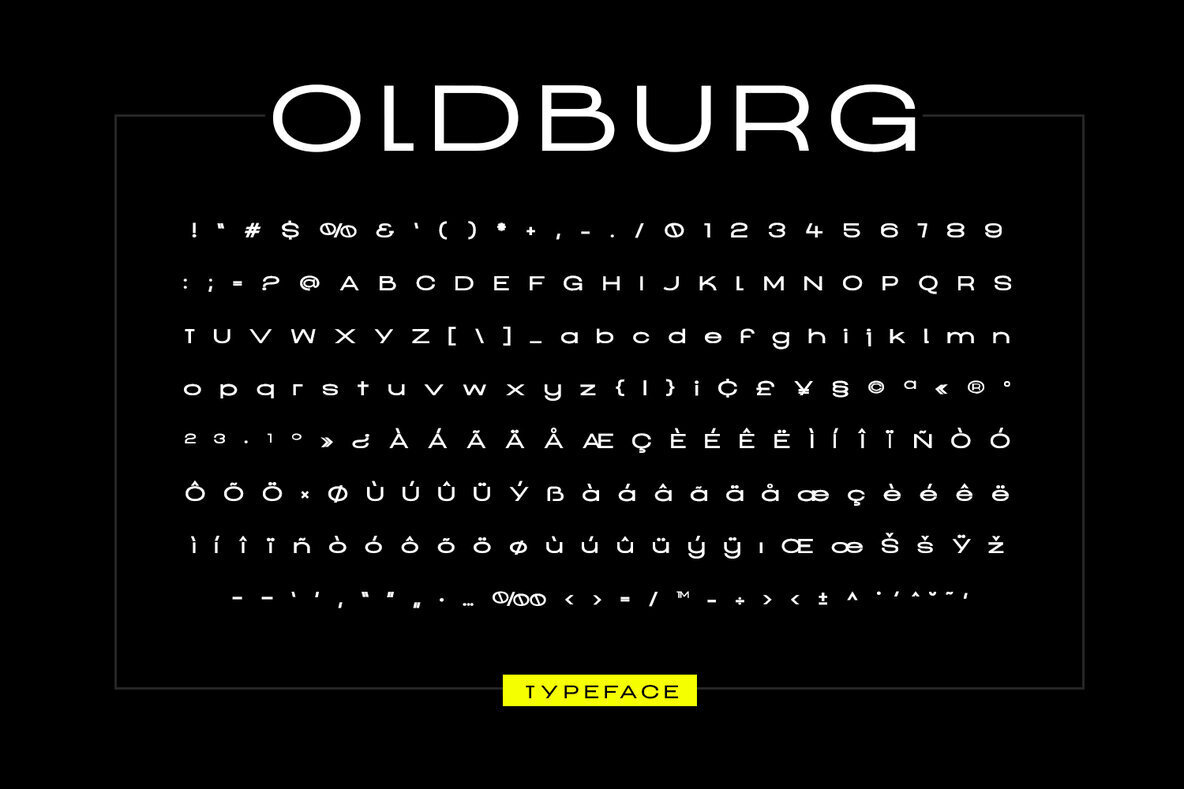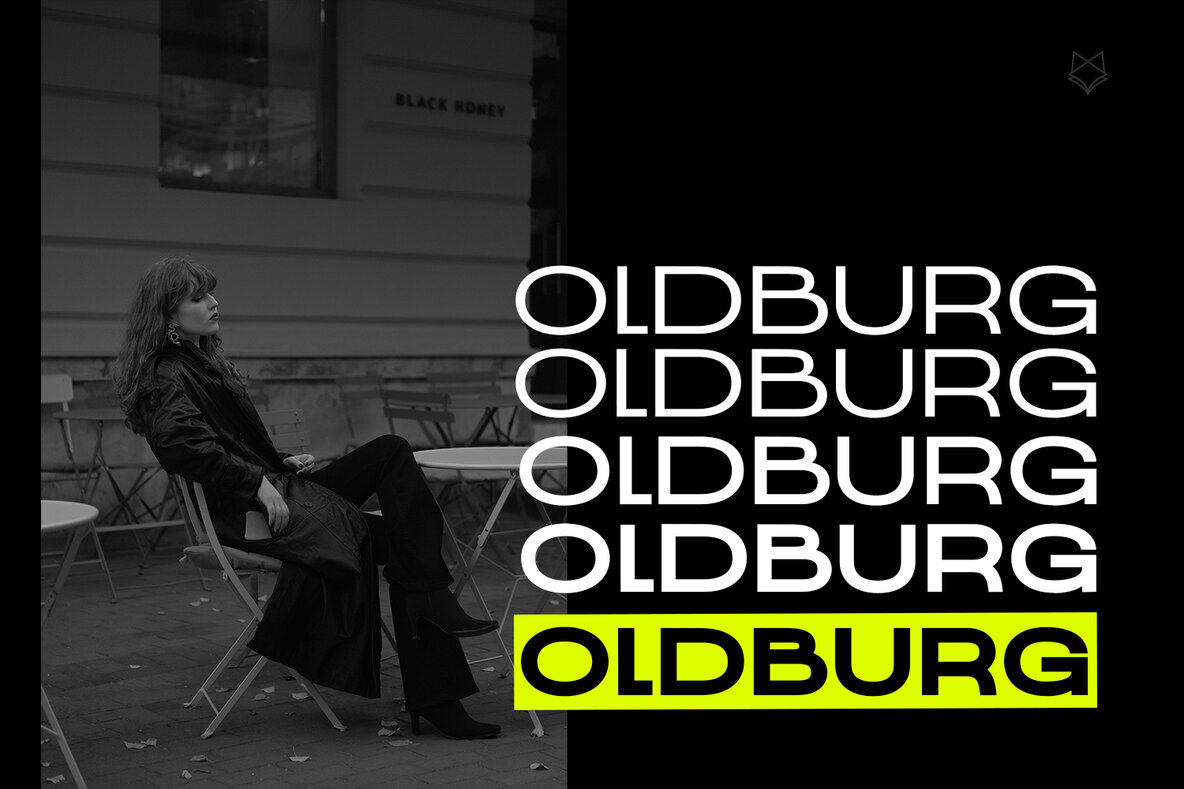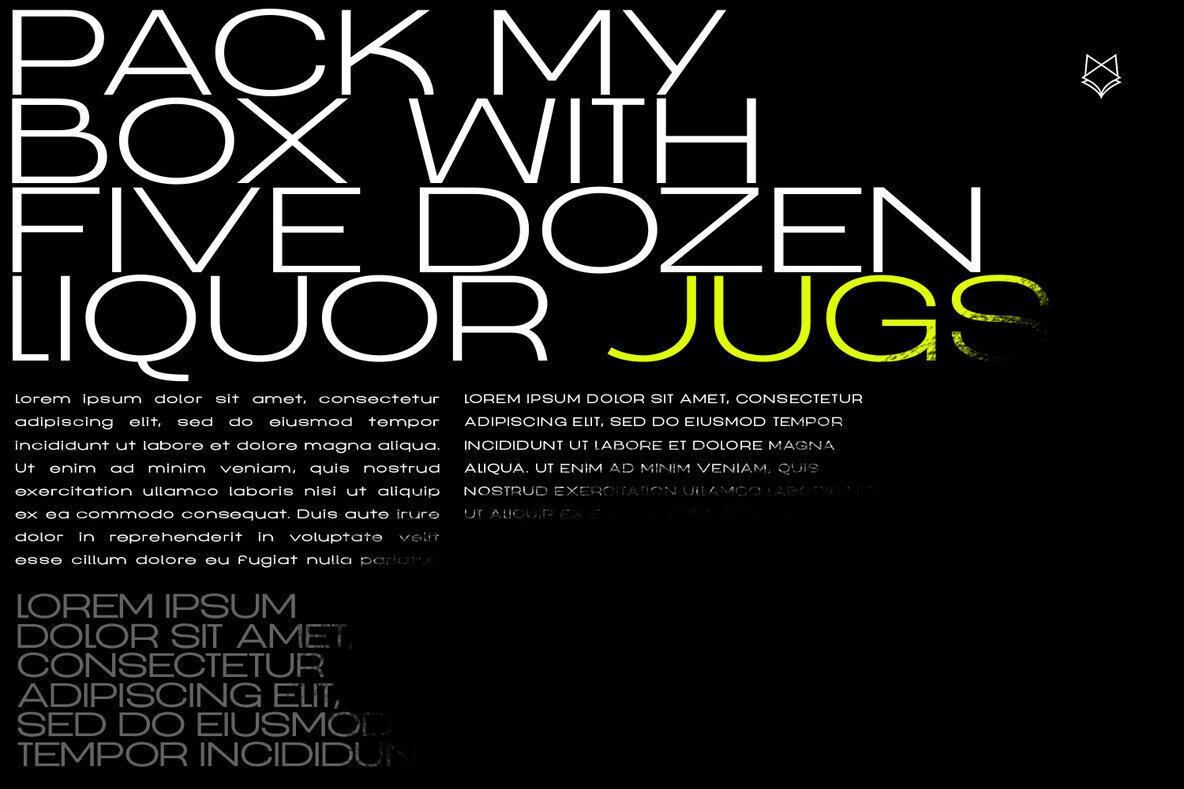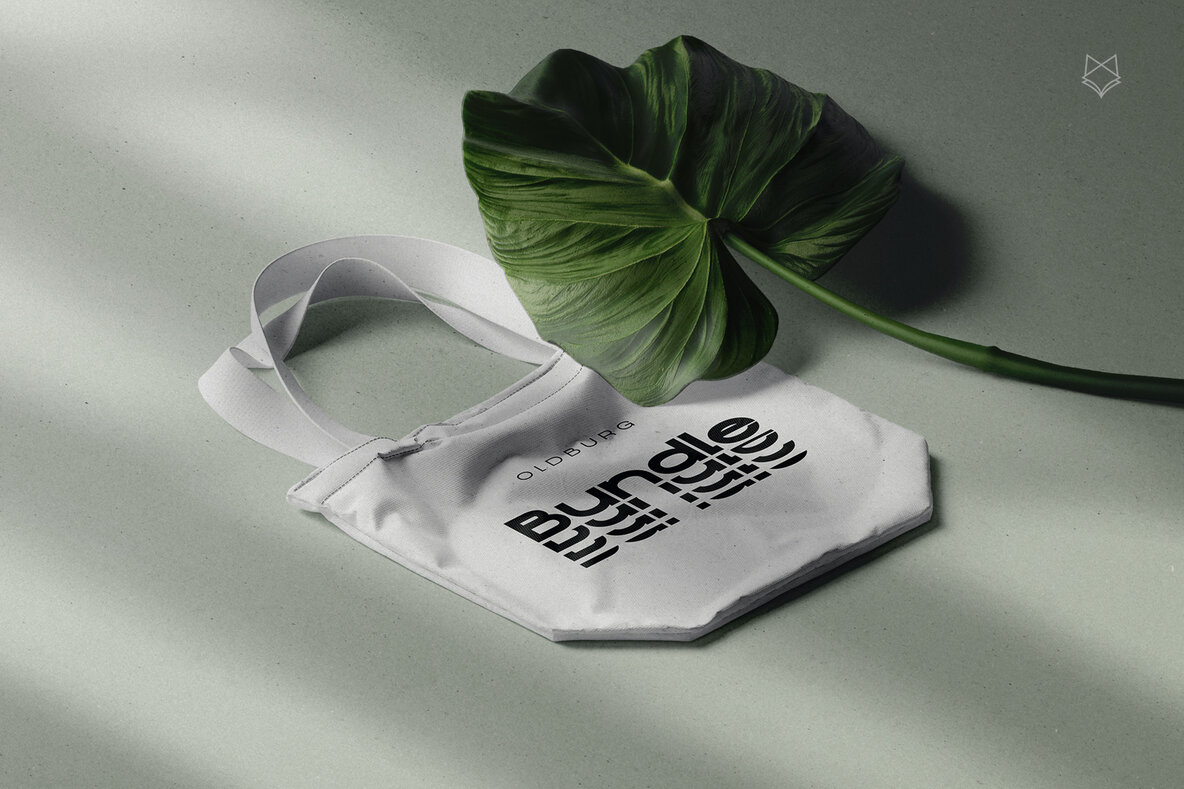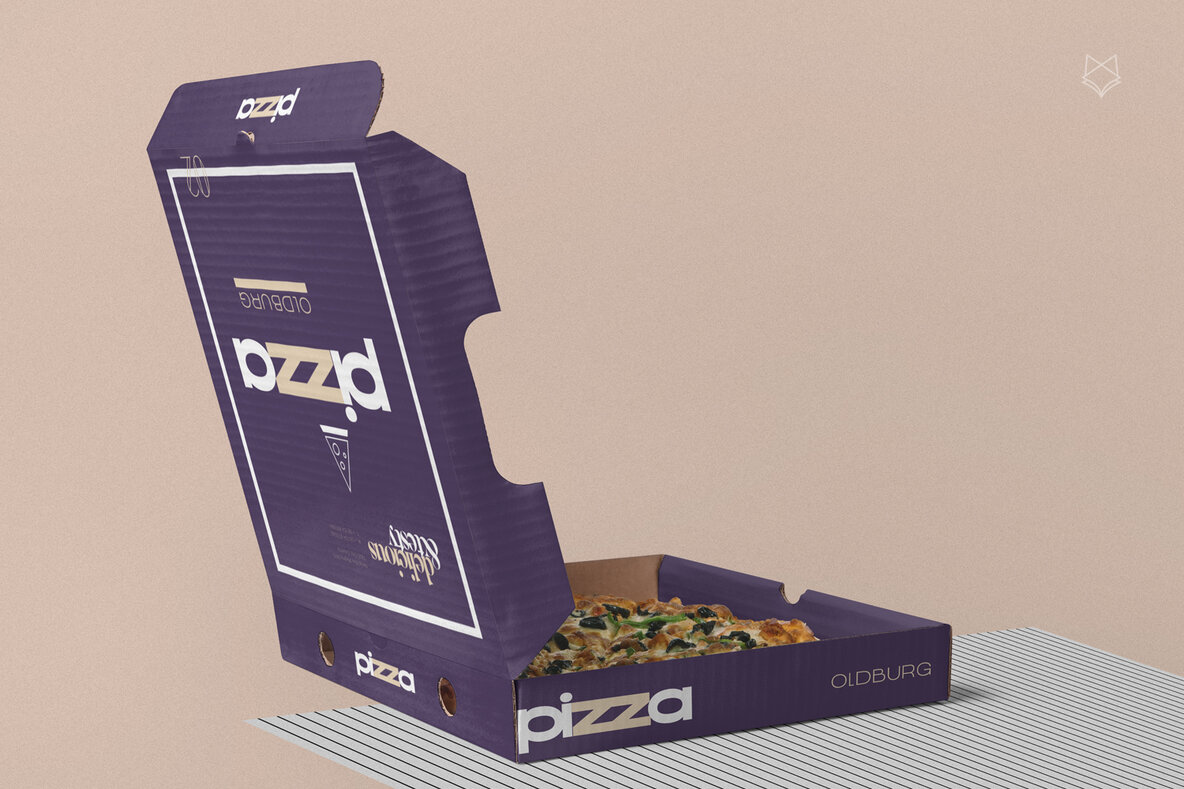
Oldburg Display Font
Oldburg Display emerges as an elegant and robust typeface, embodying a balance of dependability and modern flair. Its controlled letterforms add a touch of sophistication, making it an ideal choice for logos, magazines, and film titles. The font's versatility shines, lending itself effortlessly to branding, headlines, captions, paragraphs, and posters. Whether aiming for a minimalist or quirky style, Oldburg Display promises to impress without compromising beauty or readability.Oldburg Display: A Modern Typeface for Diverse Applications